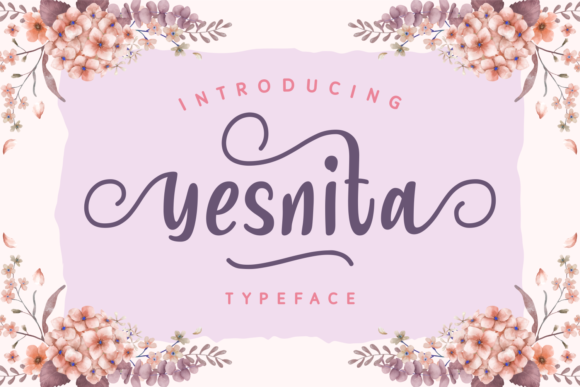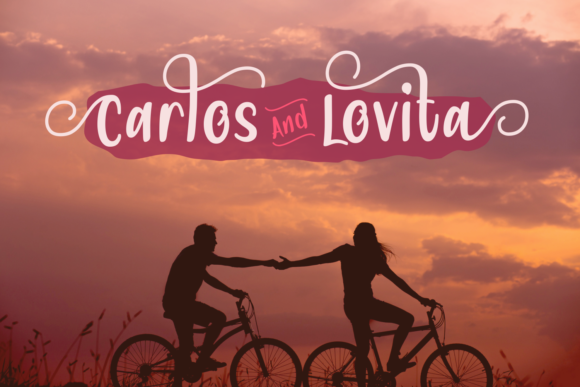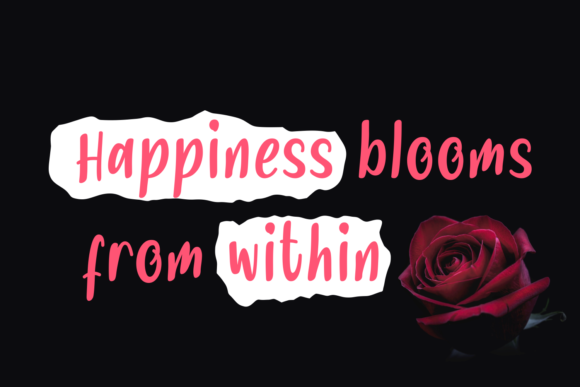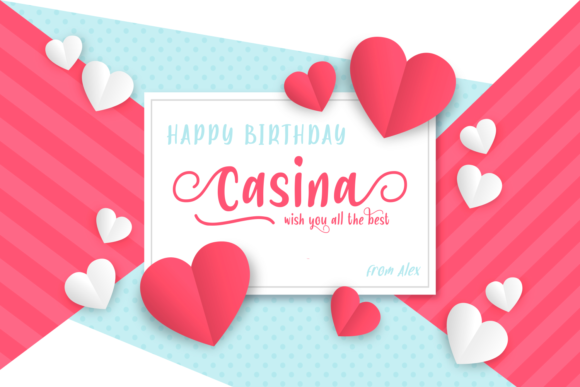
Yesnita Font
About Yesnita Font
The Yesnita is a feminine script font. It includes bold letters with a striking touch while still keeping an elegant feel.
It can be used for posters, invitations, book covers, and all other designs which need a playful touch.